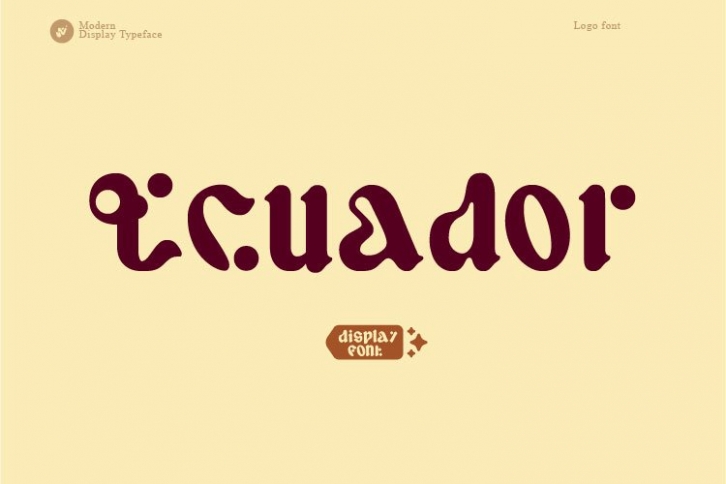
Ecuador modern retro typeface is a gorgeous font that was realeased on December 17, 2021. The font can be used in many style contexts and design environments. Perfect for invitations, magazines, websites, logos, and more! It was designed by WAP and the file size is 8.28 MB. Thanks for checking out this font!